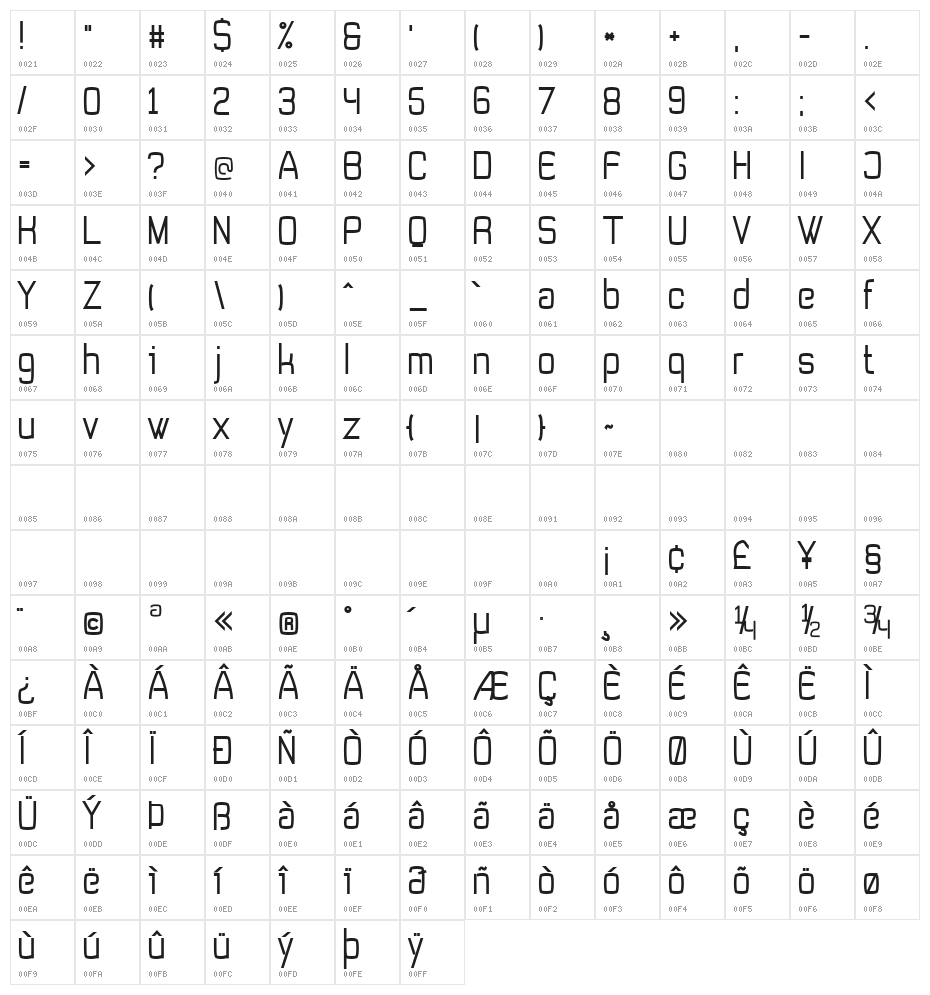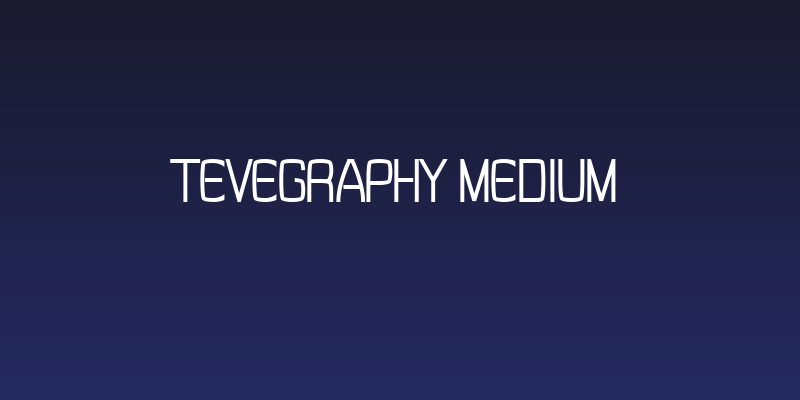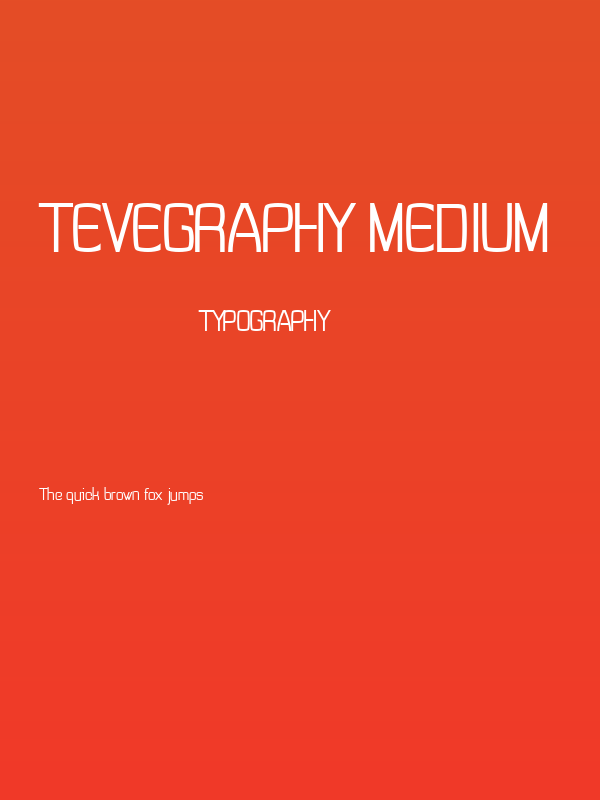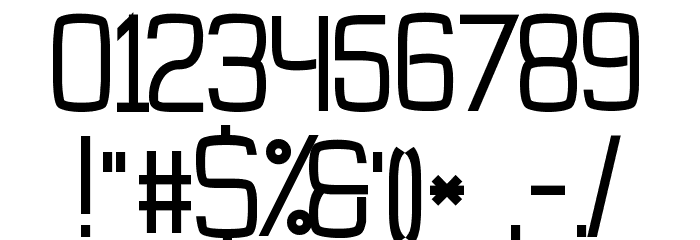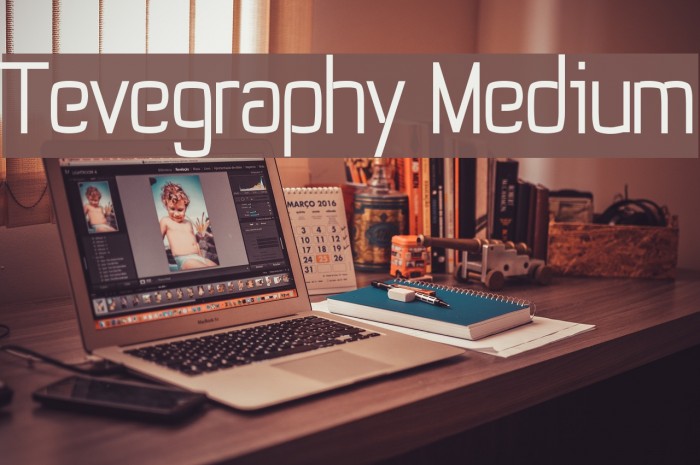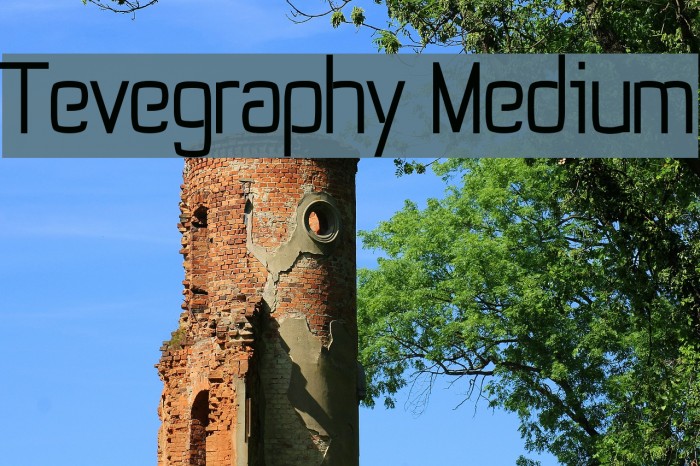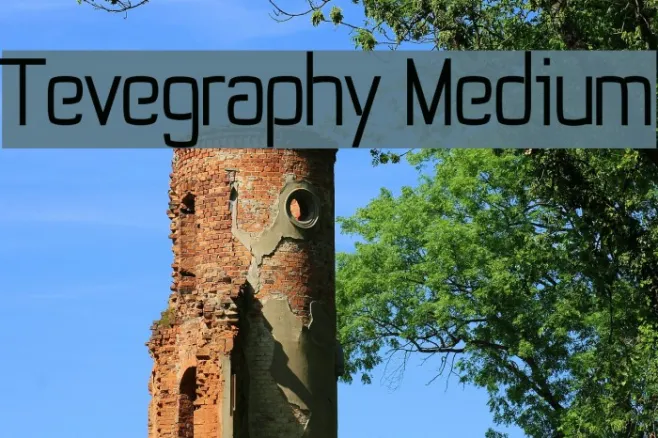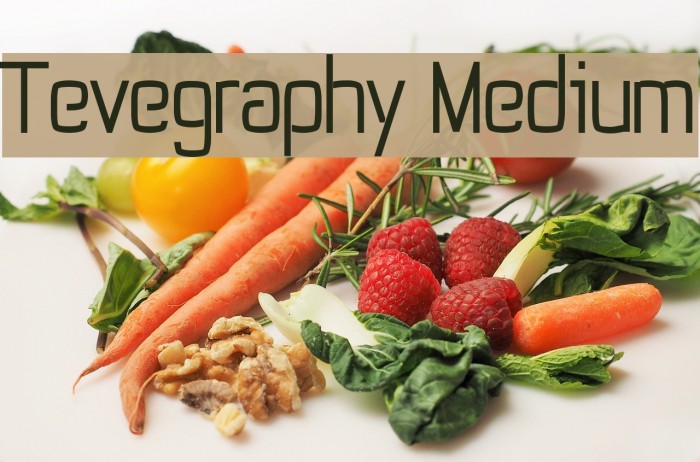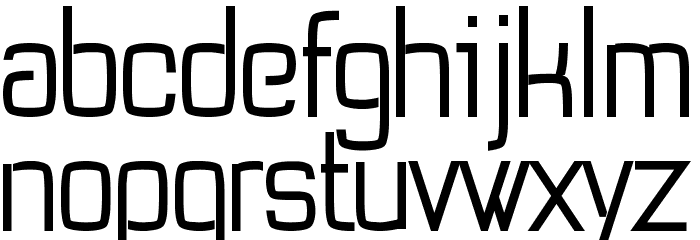
Tevegraphy Medium Font
Tevegraphy Medium Description
This font features a modern and geometric design with clean, straight lines and a uniform structure. The characters are constructed with a consistent stroke width, giving it a sleek and contemporary appearance. The uppercase and lowercase letters maintain a balanced proportion, while the numerals and special characters are designed to complement the overall aesthetic. The font's style is versatile, making it suitable for a variety of applications, from digital interfaces to print media. Its clarity and readability are enhanced by the even spacing between characters, ensuring that text remains legible at different sizes.
| Proposed Projects | Ideal for branding, digital interfaces, editorial design, and signage. |